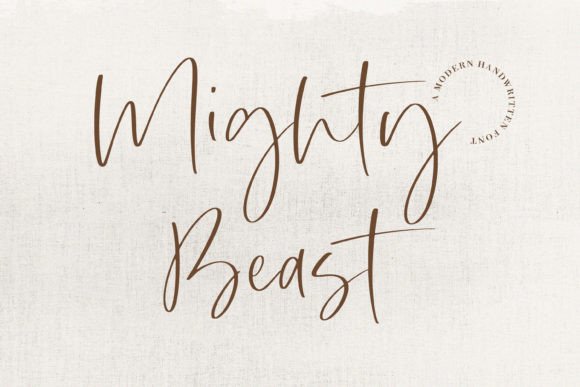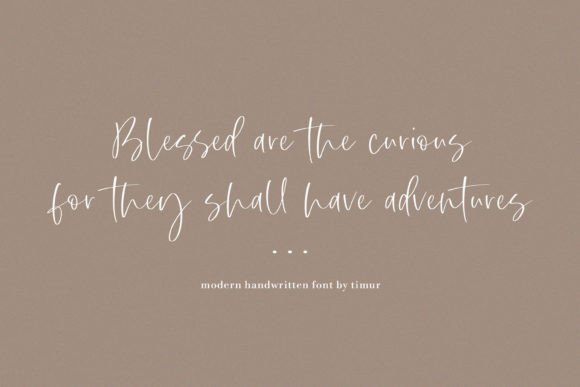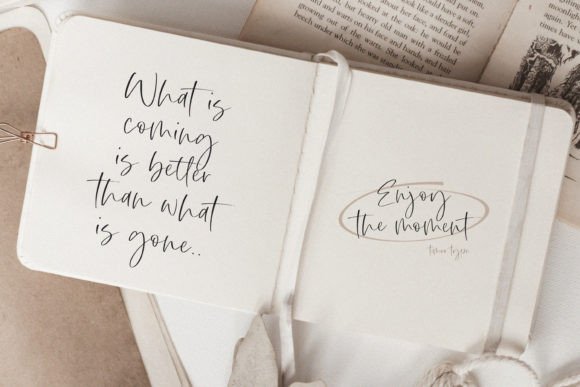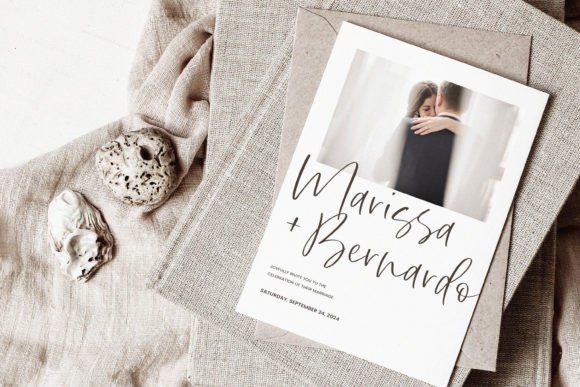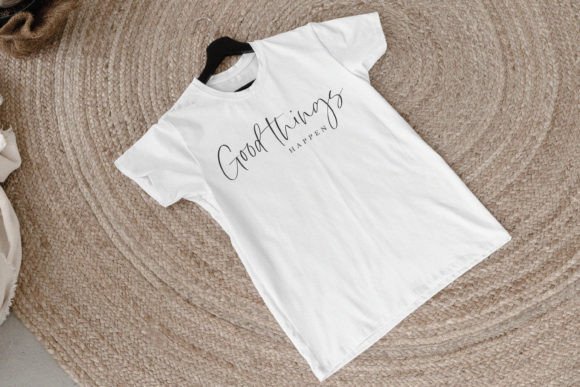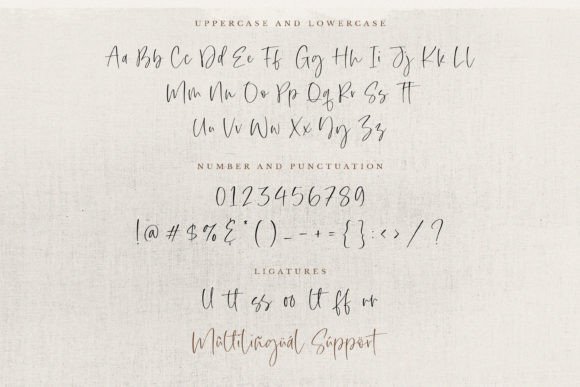
Mighty Beast Font
A Stylish and Elegant Script Typeface
Mighty Beast is a refined script font created to bring sophistication and beauty to any project. With smooth curves and graceful details, this font feels timeless and luxurious. Whether you’re designing wedding invitations, product packaging, or social media content, Mighty Beast adds a polished, elegant touch that instantly elevates your work.
Its balanced shapes and flowing strokes make it versatile for both formal and personal designs.
Mighty Beast is a font you’ll love using over and over again. It’s perfect for wedding invitations, thank you cards, and special event materials. The delicate script style sets a romantic, heartfelt mood that makes every moment feel unforgettable.
For branding, Mighty Beast shines on logos, business cards, and product labels. The signature look helps your brand feel upscale, authentic, and memorable.
This font is also beautiful on posters, inspirational quotes, and custom gifts. Its elegant strokes and natural flow make any text look refined and engaging.
On social media, Mighty Beast ensures your visuals stay consistent and stylish. Whether you’re announcing promotions, sharing quotes, or launching a product, this font keeps your content polished and professional.
Even with its decorative flourishes, Mighty Beast stays clear and legible at any size. Balanced spacing and smooth connections between letters keep your text neat, whether you’re working with large headlines or small captions.
For a clean, modern look, pair Mighty Beast with a minimalist sans-serif font. Use Mighty Beast for main titles and highlight text, and the sans-serif for supporting details. This combination feels organized and sophisticated while showcasing the script’s character.
To make Mighty Beast stand out, use soft backgrounds and neutral color palettes. Shades like ivory, blush, and warm gray help the script pop without overwhelming your design.
When designing invitations or packaging, consider adding delicate flourishes or subtle illustrations to complement the handwritten style.
On social media, embrace white space so your text remains the focus and your posts look clean and professional.
Think about the mood you want to share. Mighty Beast is perfect for designs that should feel elegant, romantic, and timeless.
Mighty Beast isn’t just another script font—it’s a creative asset that makes any project feel sophisticated and special. From professional branding to personal keepsakes, this font adapts effortlessly to every purpose and adds a premium feel to your work.
Adding Mighty Beast to your font collection ensures you’ll always have a versatile, stylish option ready to use. Whether you’re creating logos, invitations, or social media graphics, this font makes every piece feel polished and memorable.